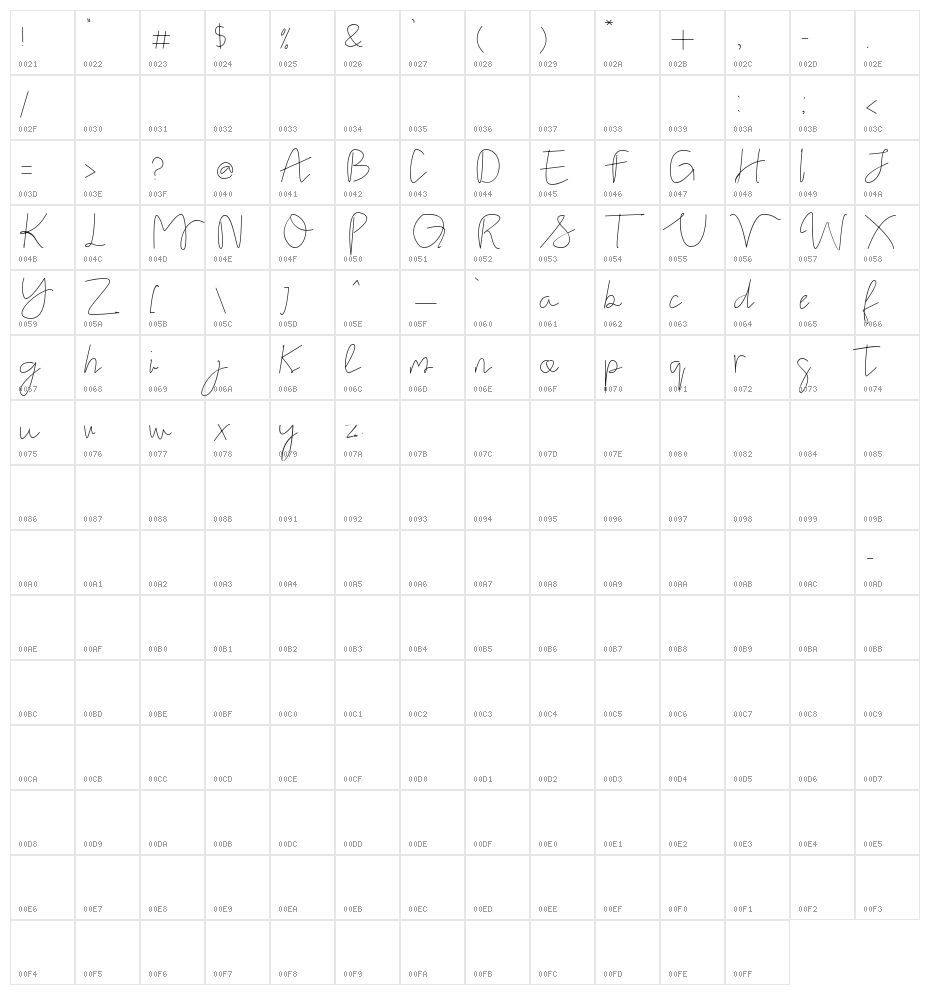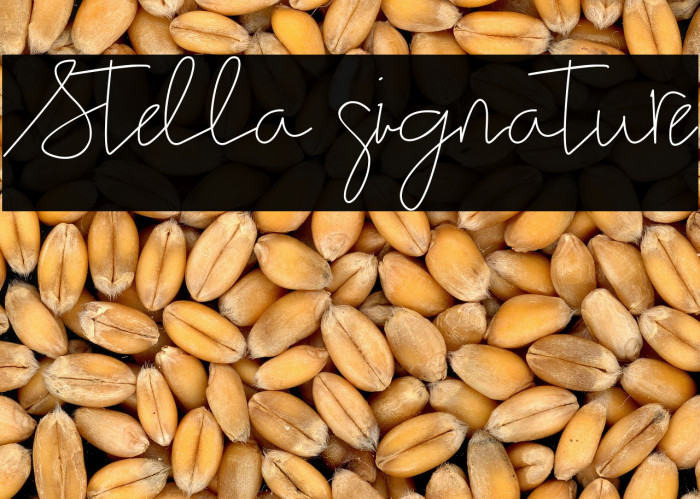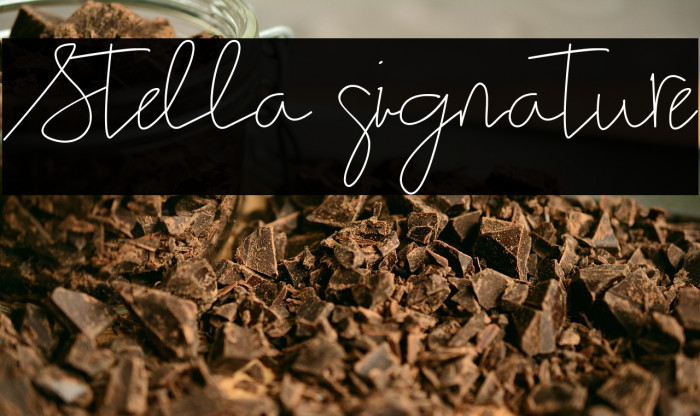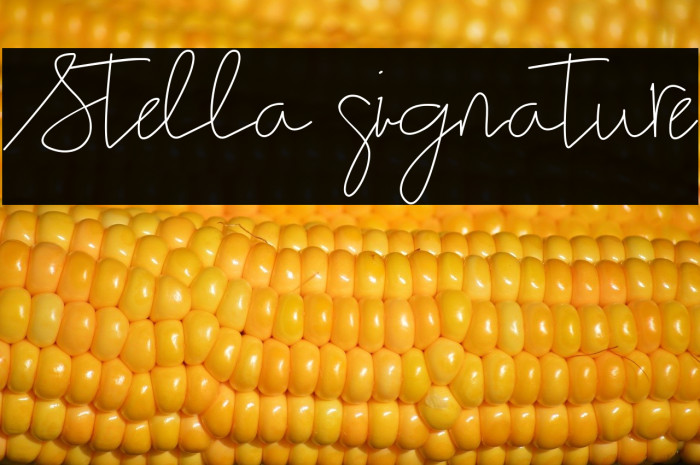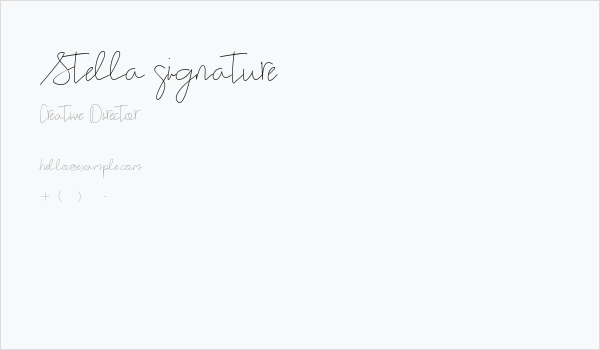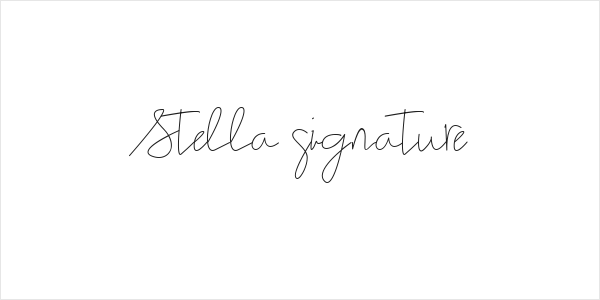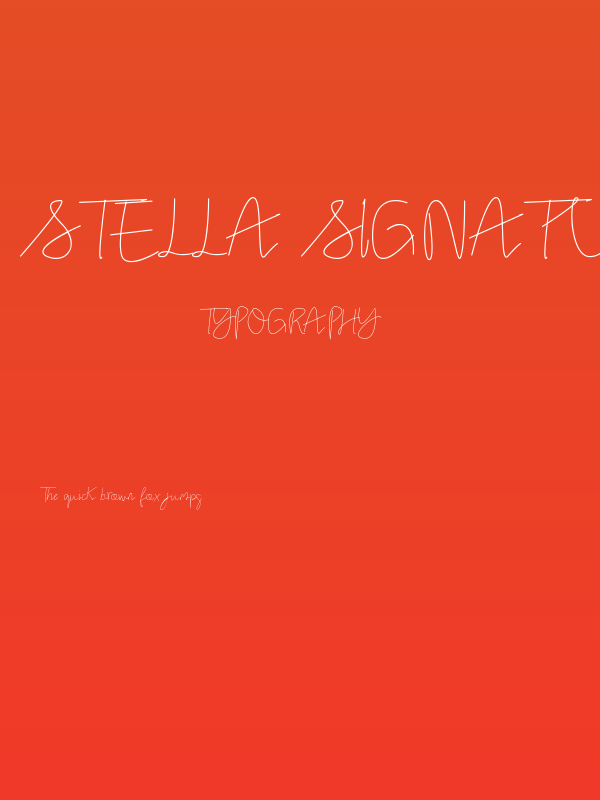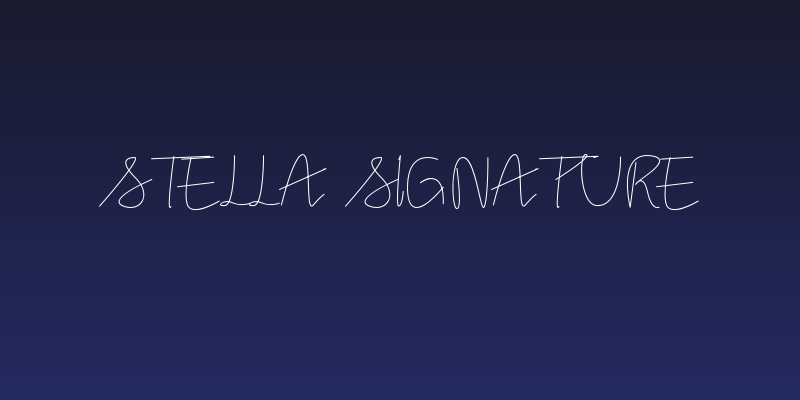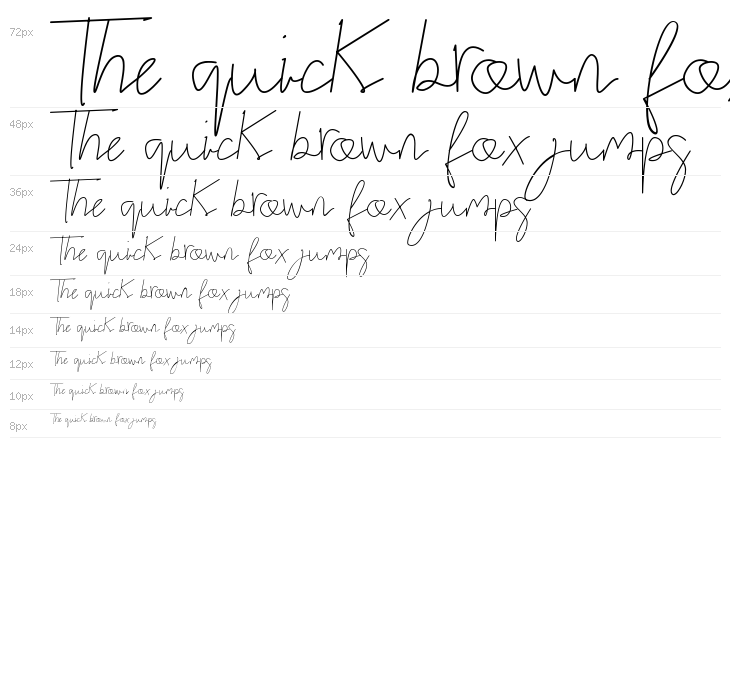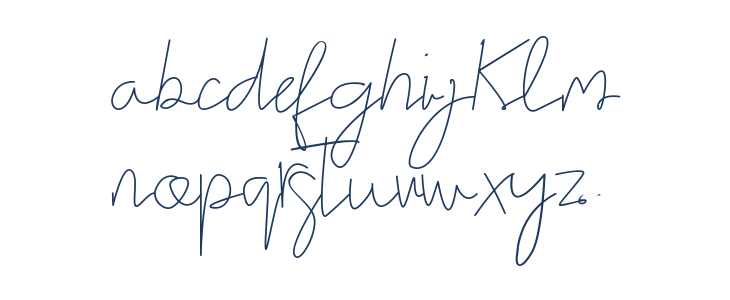
Stella signature Font
Stella signature Description
This font exudes a casual and elegant handwritten style, characterized by its fluid and continuous strokes. The letters are connected in a way that mimics natural handwriting, offering a personal and artistic touch. The uppercase letters maintain a consistent height, while the lowercase letters vary in size, adding to the dynamic and lively appearance. The strokes are thin and delicate, providing a sense of lightness and sophistication. This font is versatile, suitable for projects that require a personal or creative flair, such as invitations, greeting cards, or branding materials. The special characters are seamlessly integrated, maintaining the overall aesthetic of the font.
| Overall Style | Casual, Elegant |
| Use Case | Logos, Invitations, Greeting cards |
| Proposed Projects | Ideal for invitations, greeting cards, personal branding, and creative projects. |